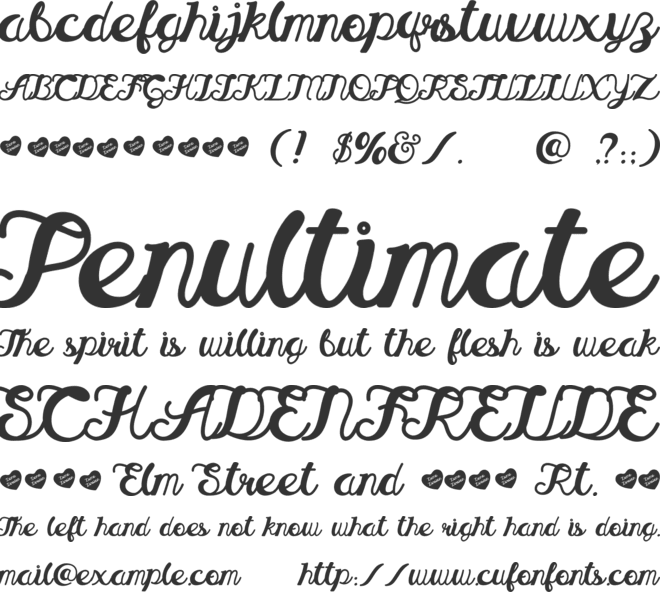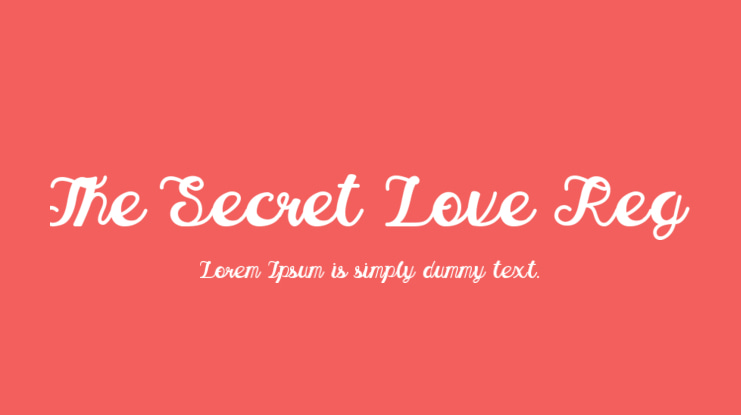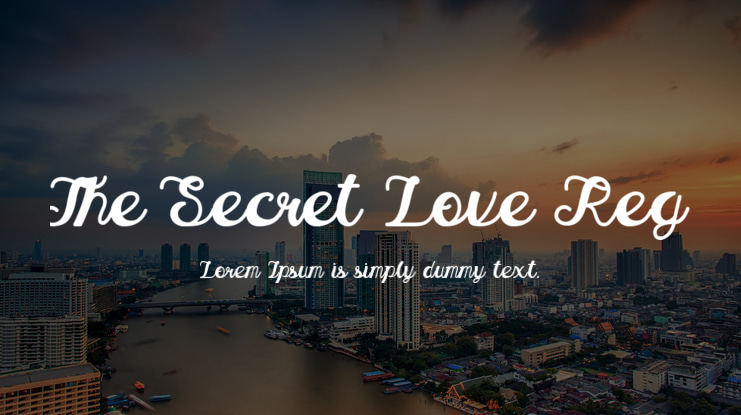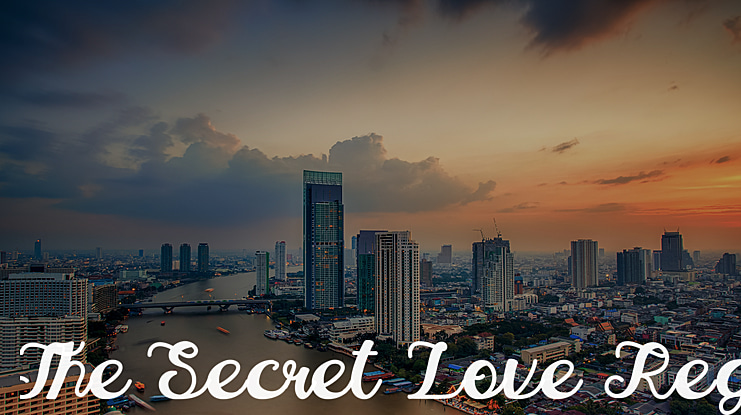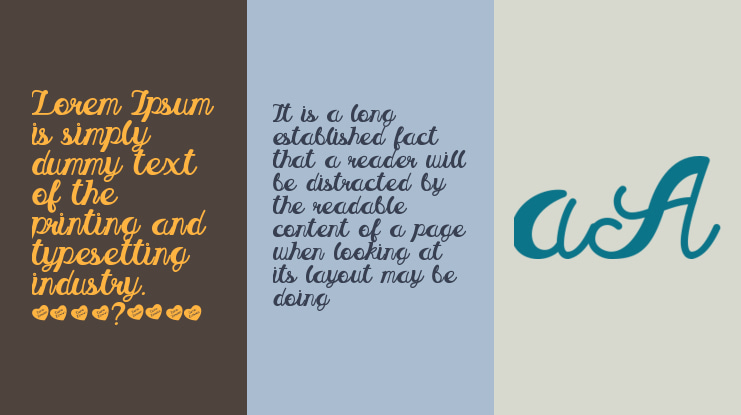
The Secret Love is a handmade script font that it equal parts adorable and edgy. With flawless ease, this font can be the girl next door or the bad boy on the other side of town. Great for posters, branding, large projects and small!